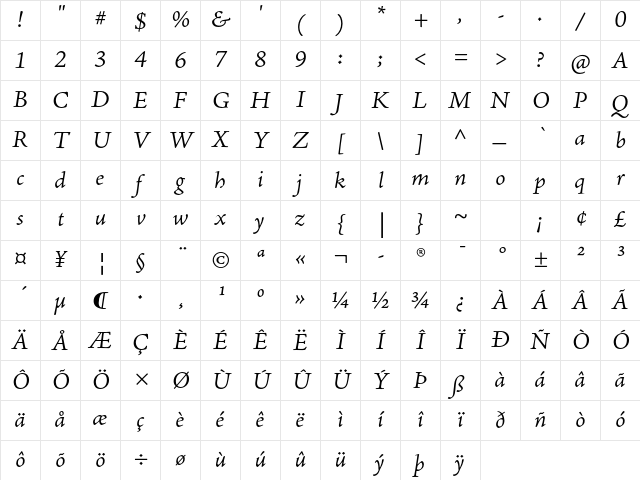
Adobe Jenson Pro is a composed and adaptable typeface that performs quietly and consistently across a wide range of design contexts. The slanted form adds forward momentum and visual energy. Its slender proportions lend an understated elegance to any composition.
Pro Tip: Use Adobe Jenson Pro for emphasis, pull quotes, and subheadings where its slanted energy can add rhythm to the layout.